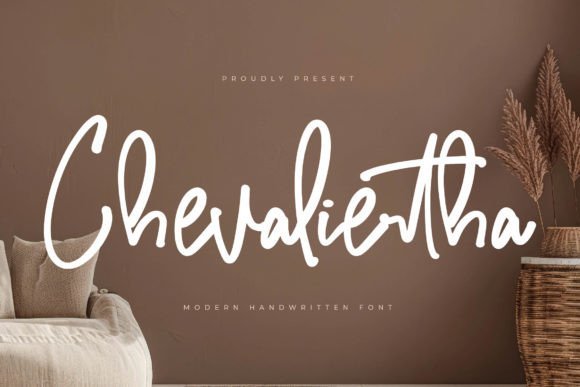
The Perfect Script for Your Next Masterpiece
As a designer, have you ever stared at a blank canvas, feeling the urge to create something truly unique and captivating? The spark of inspiration strikes, and you envision a beautiful, handwritten font that exudes luxury and sophistication. For those moments, Chevaliertha Font is here to elevate your creativity and bring your vision to life.
This stunning script font, crafted by Letterena, is a game-changer for designers seeking to add a touch of elegance to their projects. Whether you’re working on logos, branding, or homeware designs, Chevaliertha Font is the perfect companion to help you achieve that luxury look. Its versatility and refined character make it an invaluable asset for any designer looking to push the boundaries of their creativity.
Chevaliertha Font Key Features
- Font Family: Chevaliertha
- Unique Characteristic: This font features a unique blend of medieval and modern elements, making it suitable for historical and fantasy-themed designs
Designer Review: Chevaliertha Font
First impressions count, and the Chevaliertha Font certainly makes a statement ✨. The elegant and refined design instantly caught my attention, and I can see why it’s popular among designers. The intricate details and subtle flair add a level of sophistication that’s hard to find in other fonts.
- The unique blend of modern and classic elements ✨
- The high level of legibility, making it perfect for body text and headings ✨
- The versatility in styling options, from formal to elegant ✨
However, there are some limitations to consider ⚠️. The font’s complexity can make it challenging to use in certain contexts, such as on small screens or in low-resolution environments. Additionally, some users may find the font’s ornate details distracting or overwhelming.
Overall, I’d say the Chevaliertha Font is a solid choice for designers looking to add a touch of elegance and sophistication to their projects. While it may not be the best fit for every situation, it’s definitely worth considering for high-end or formal designs. With some careful consideration and planning, the Chevaliertha Font can elevate your work to new heights ✨.
The Chevaliertha Font is ideal for use in creative projects, such as:
– Graphic novels and comics
– Digital art and illustrations
Alternatives to Chevaliertha Font
Pacifico is a beautiful, elegant script font ideal for creating a sophisticated and luxurious feel. It’s perfect for branding, logos, and titles that require a touch of class and sophistication.
Compared to Chevaliertha Font, Pacifico has a more refined and polished look, making it suitable for high-end designs. While Chevaliertha Font has a more rugged feel, Pacifico is more delicate and refined.
Great Vibes is a modern script font that exudes a sense of energy and playfulness. It’s perfect for designs that require a fun and youthful vibe, such as advertising, social media, and entertainment branding.
Compared to Chevaliertha Font, Great Vibes is more energetic and dynamic, while Chevaliertha Font has a more vintage feel. Great Vibes is also more versatile and can be used for a wide range of applications, from headings to body text.